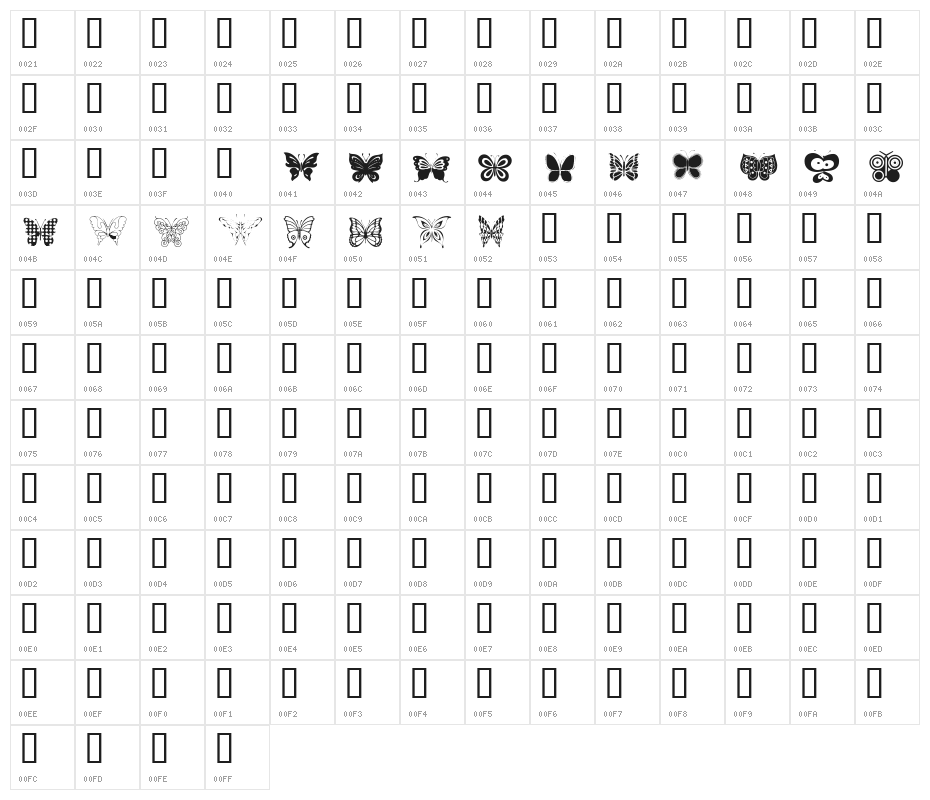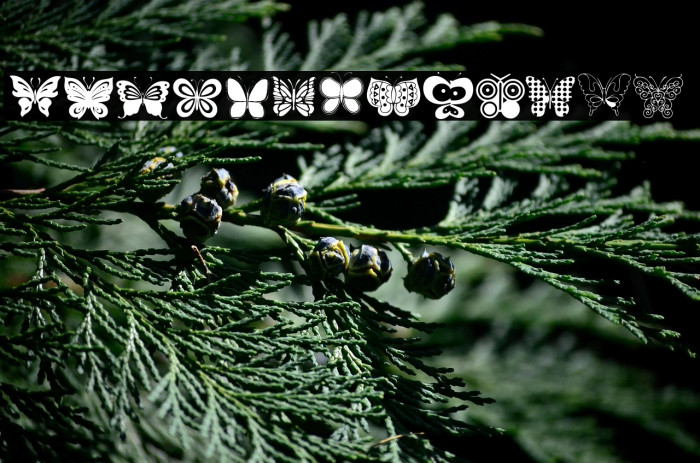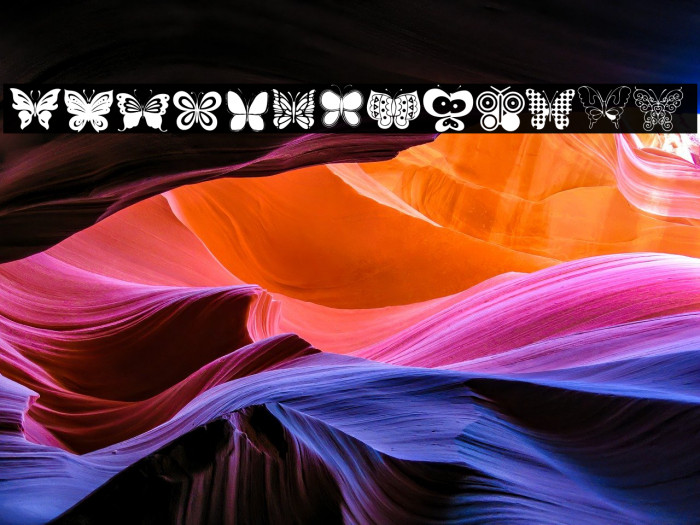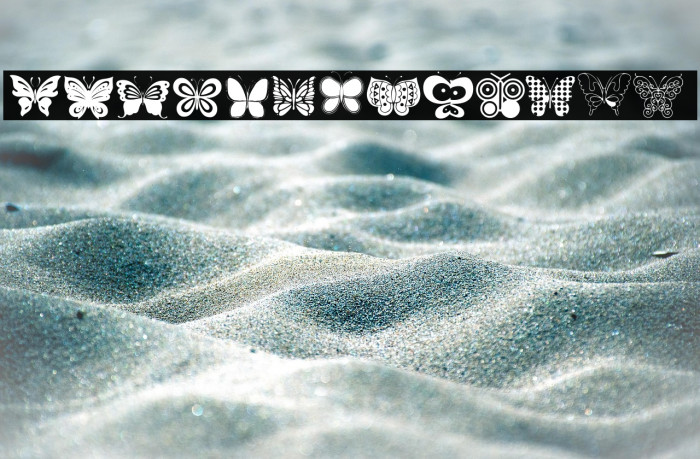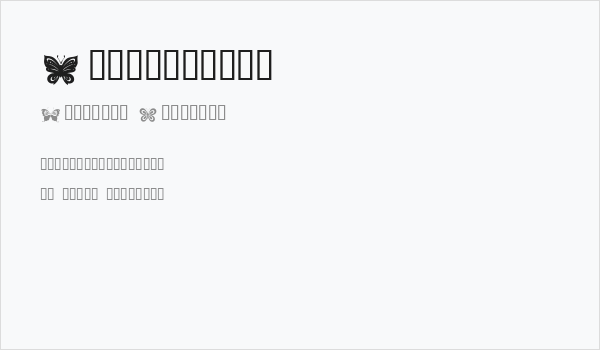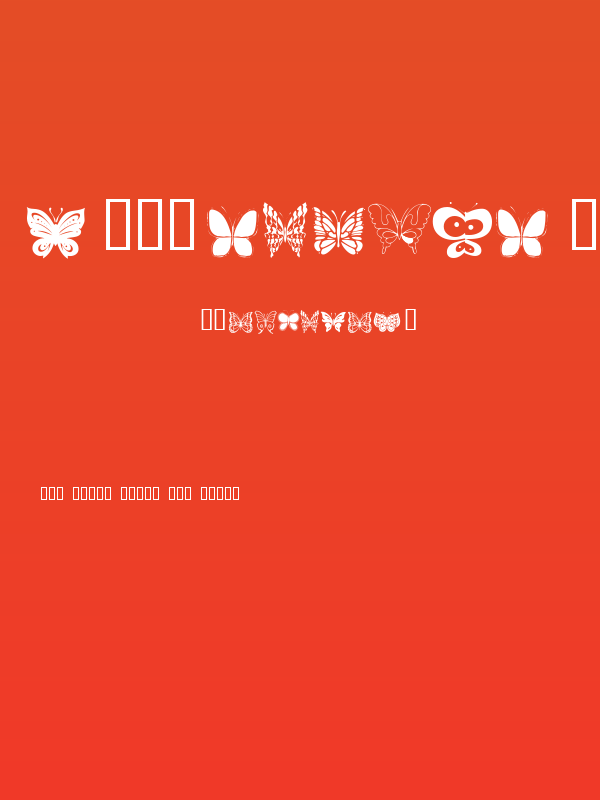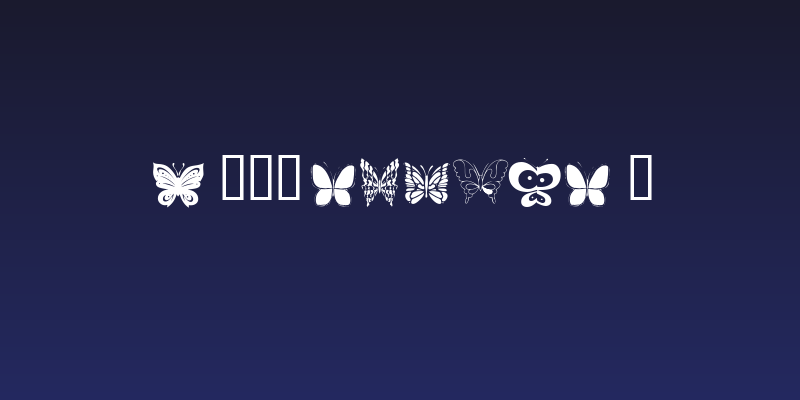
Butterflies Font
Butterflies Description
A decorative font featuring various stylized butterfly illustrations as glyphs, each with unique wing patterns and details. The designs range from solid black silhouettes to intricate line art, offering a whimsical and playful appearance.
| Overall Style | Decorative, Whimsical, Playful |
| Use Case | Decorative elements, Icons, Themed graphics |
| Proposed Projects | Greeting cards, children's books, scrapbooking, invitations, decorative headings, nature-themed projects. |